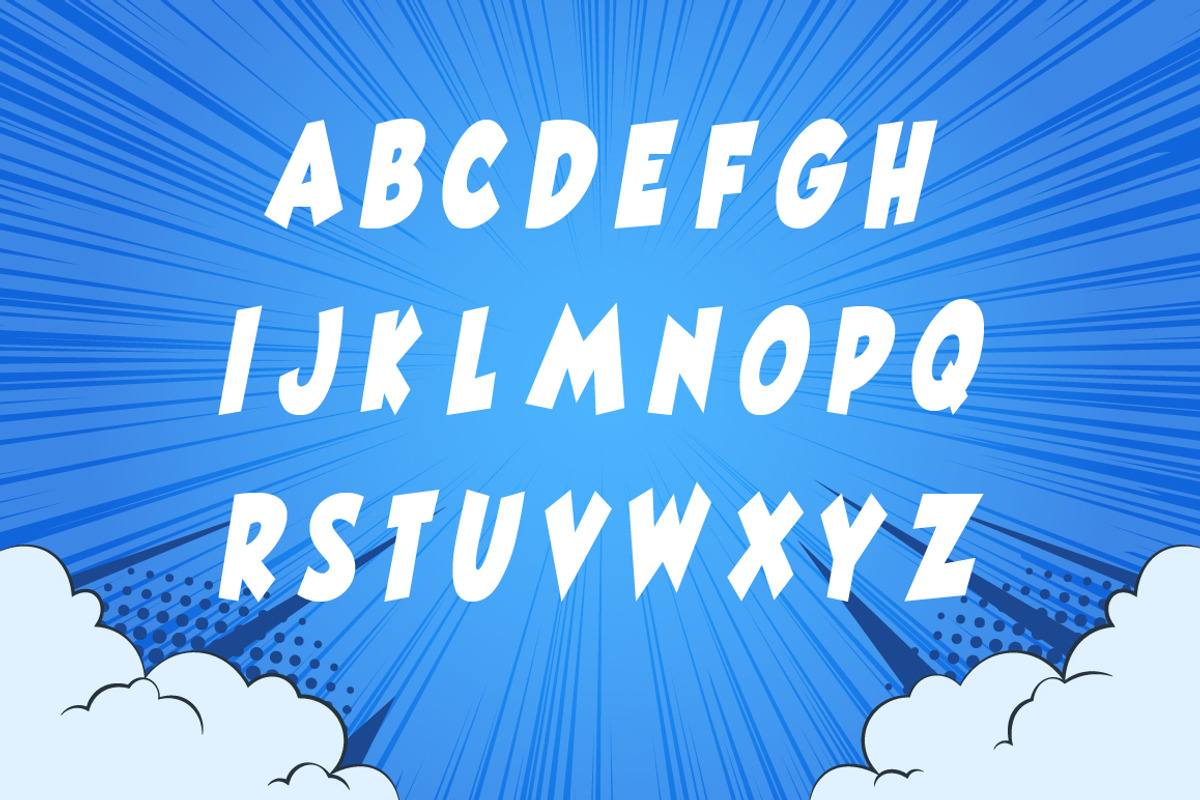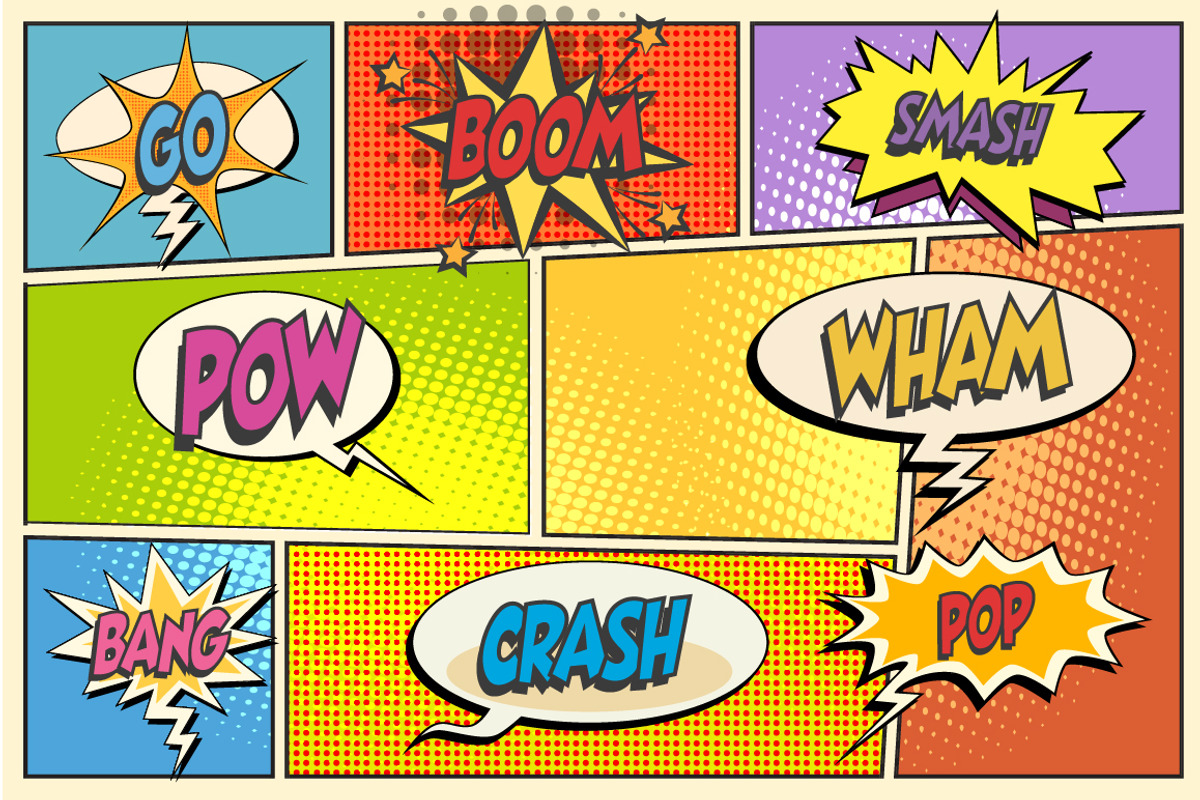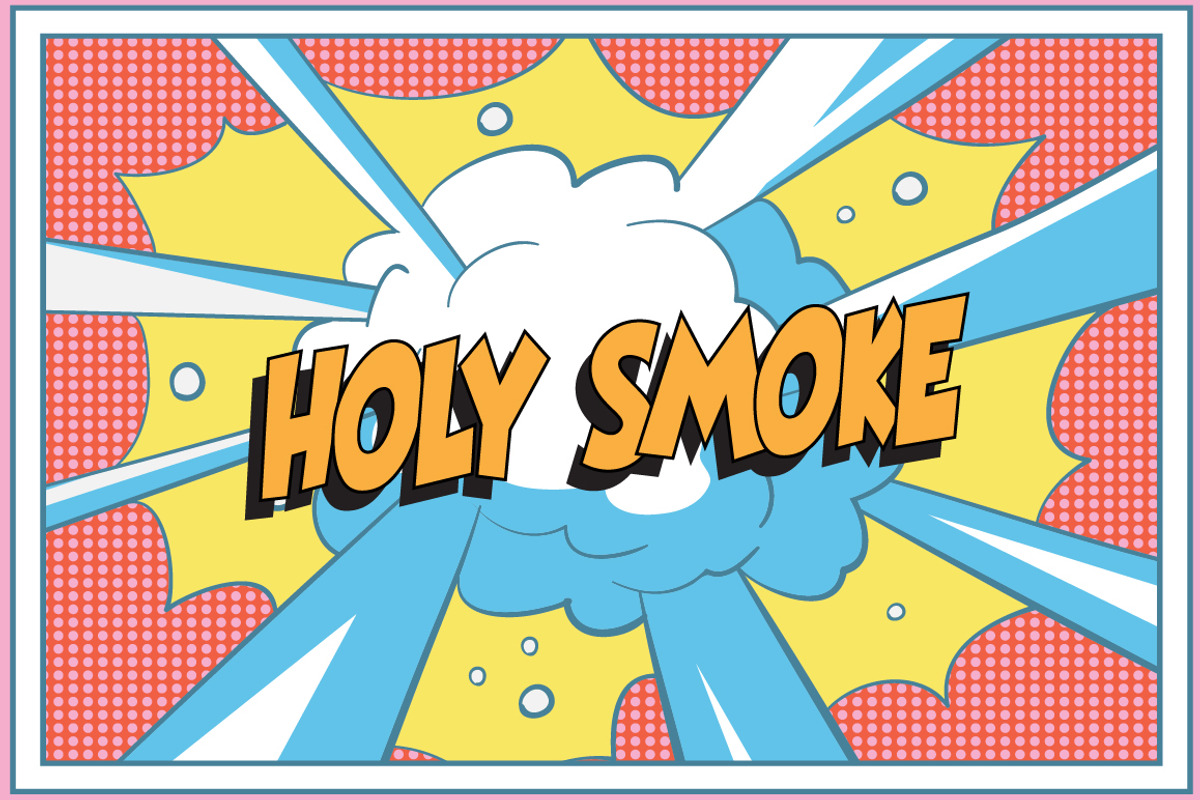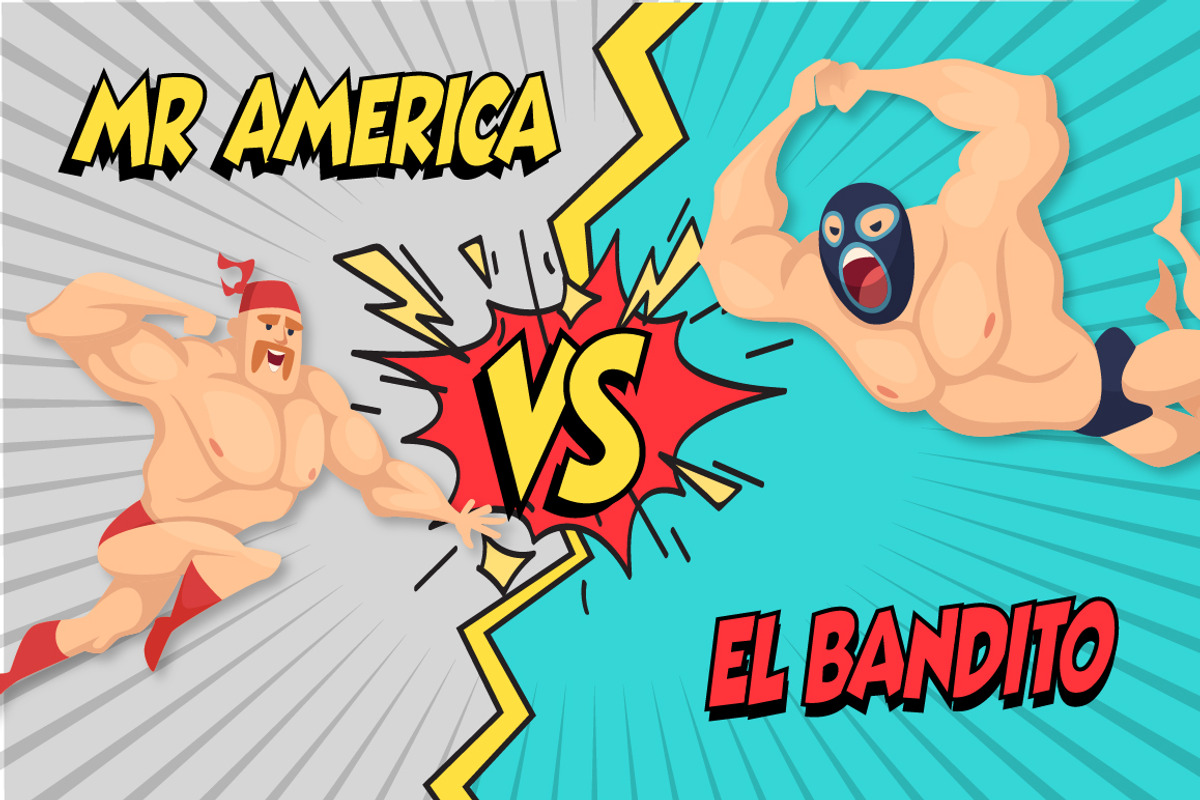
Best Friends Comic Font
Best friends is a fabulous new comic book style font that packs a huge KAPOW! Perfect for adding a little sass to your designs and full of character! Use it for anything and everything your imagination can think of!
Best Friends Comic Font by Salt & Pepper Designs fits naturally into Branding, posters, packaging, typography.